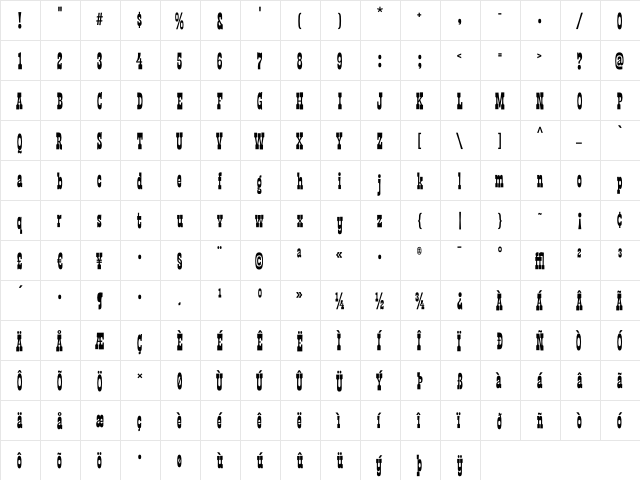
LasVegas Nugget
Design Context for LasVegas Typeface
LasVegas is a composed and adaptable typeface that performs quietly and consistently across a wide range of design contexts.